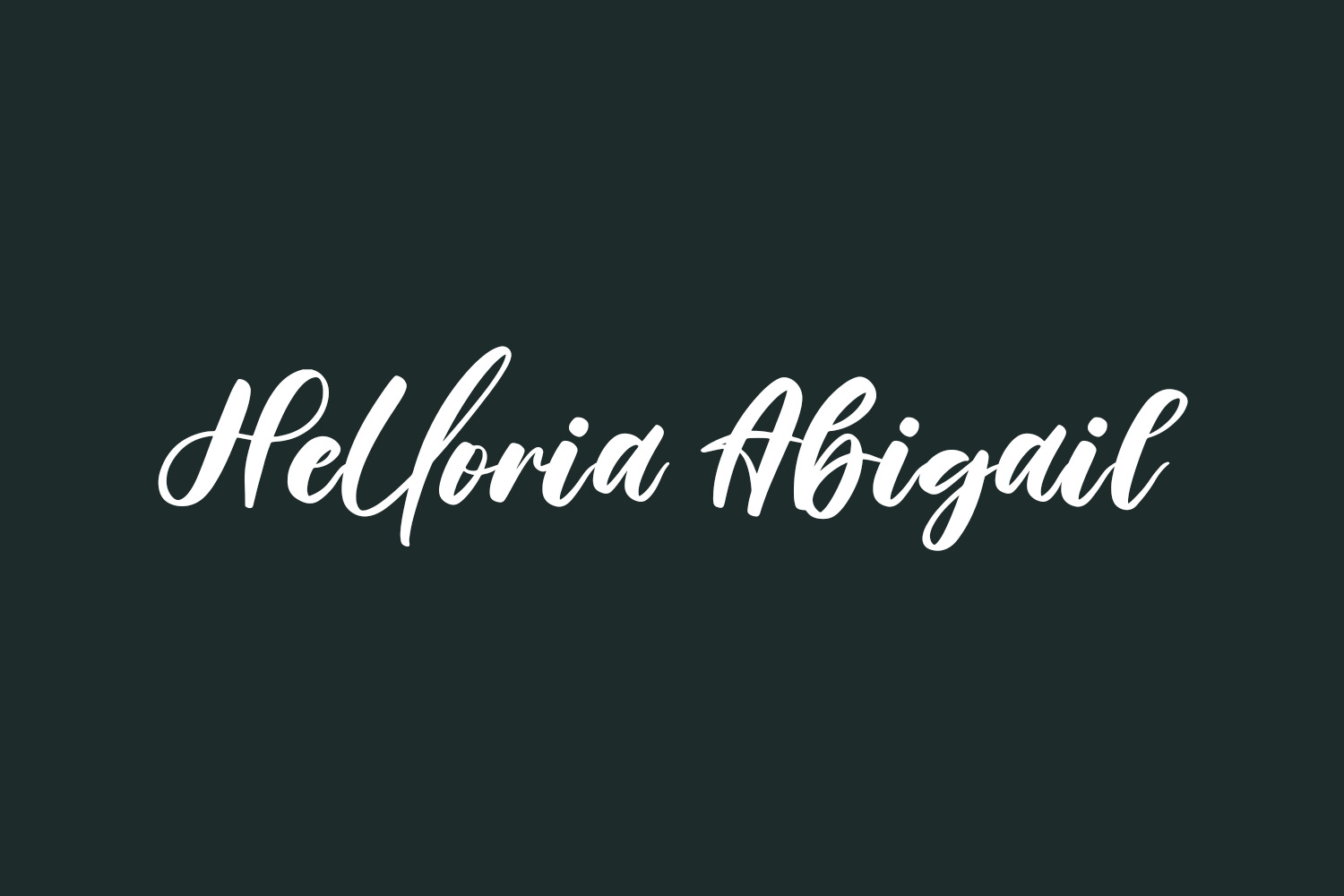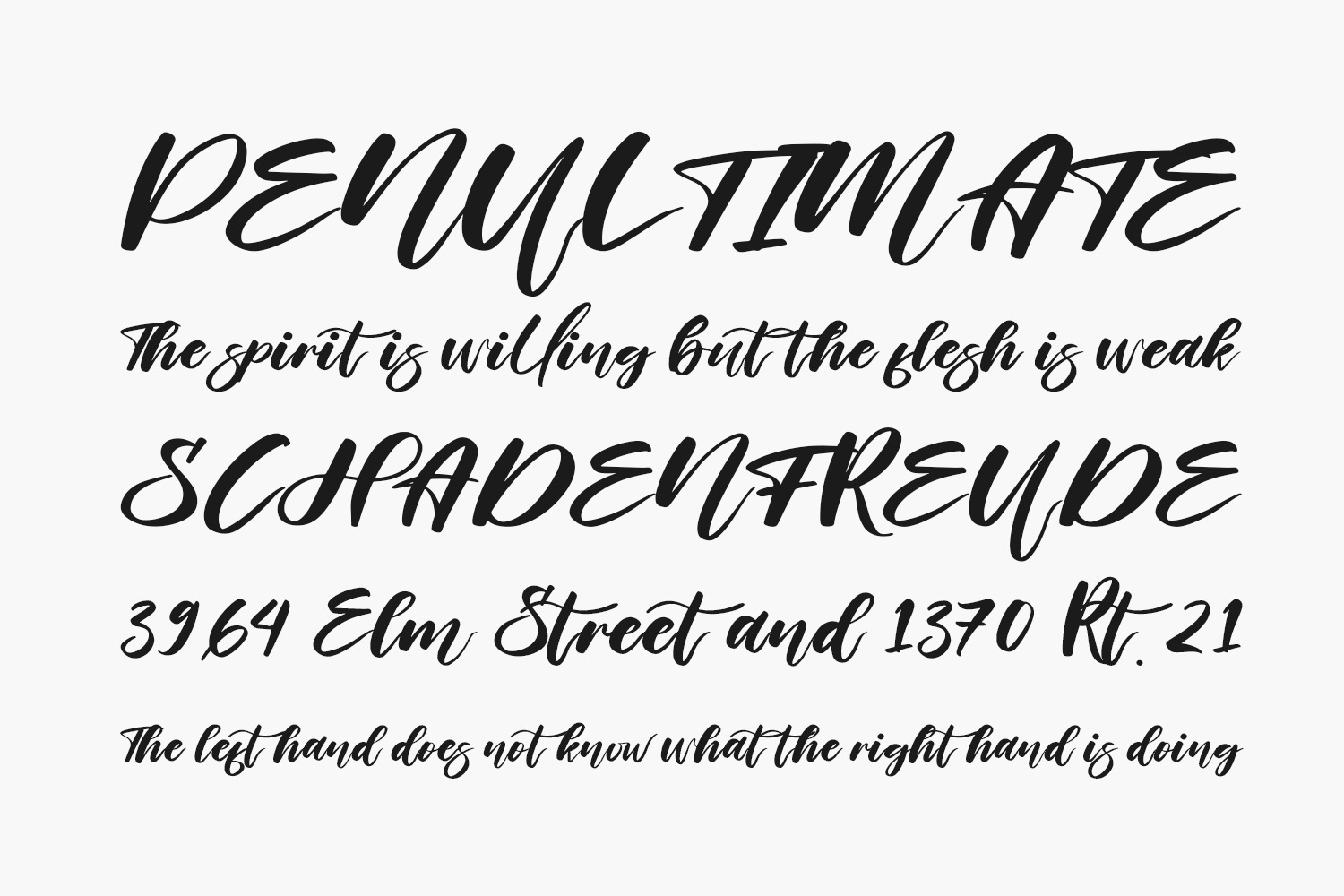
Helloria Abigail Free Font is a romantic and sweet calligraphy typeface with characters that dance along the baseline. It will add a luxury spark to any design project that you wish to create. Helloria Abigail Free Font was designed by Perspectype Studio and is free for personal use only. Please purchase the full version for commercial use.